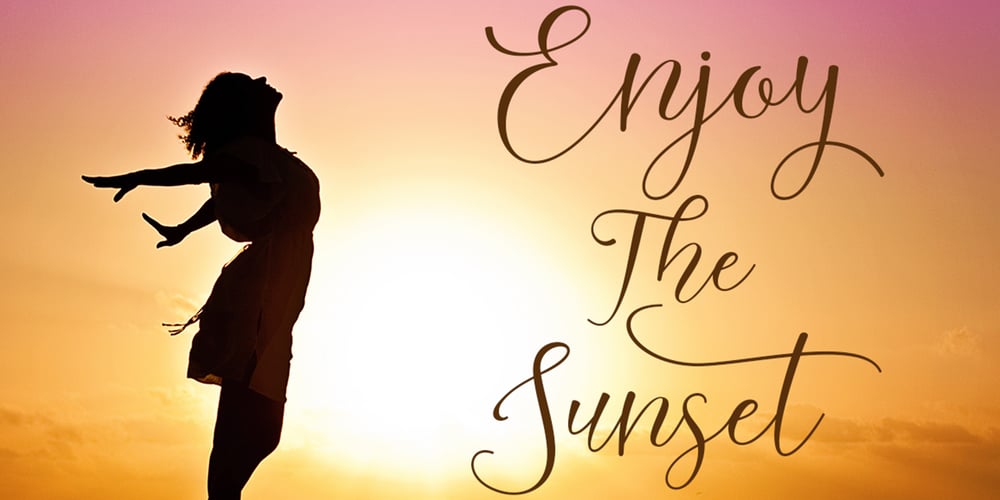
Lattoria Script Font Family was designed by Sidiq Fahmi and published by Rotterlab Studio. Lattoria Script contains 1 styles and family package options. Lattoria Script – a new fresh & modern script with a handmade calligraphy style, decorative characters and a dancing baseline! So beautiful on invitation like greeting cards, branding materials, business cards, quotes, posters, and more design concept! The alternative characters were divided into several Open Type features such as Swash, Stylistic Sets, Stylistic Alternates, and Ligature. The Open Type features can be accessed by using Open Type savvy programs such as Adobe Illustrator, Adobe Photoshop, Corel Draw X version, And Microsoft Word. This font is PUA encoded (specially coded fonts) so that all the alternate characters can easily be accessed in full by a craftsman or designer. Unique ligatures Stylistic Alternates Stylistic sets Basic Latin A-Z and a-z Numbers International Symbols included Punctuations How to access all alternative characters using Adobe Illustrator: • https://www.youtube.com/watch?v=XzwjMkbB-wQ There are additional ways to access alternates/swashes, using Character Map (Windows), Nexus Font (Windows), Font Book (Mac) or a software program such as PopChar (for Windows and Mac). How to access all alternative characters, using Windows Character Map with Photoshop: • https://www.youtube.com/watch?v=Go9vacoYmBw File Included: Lattoria Script (otf)